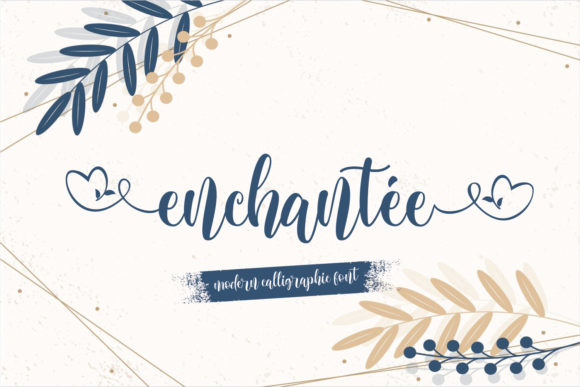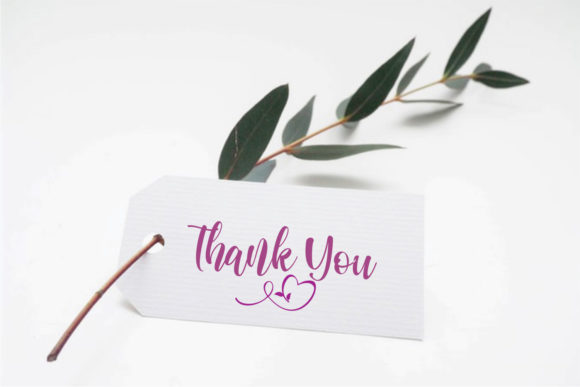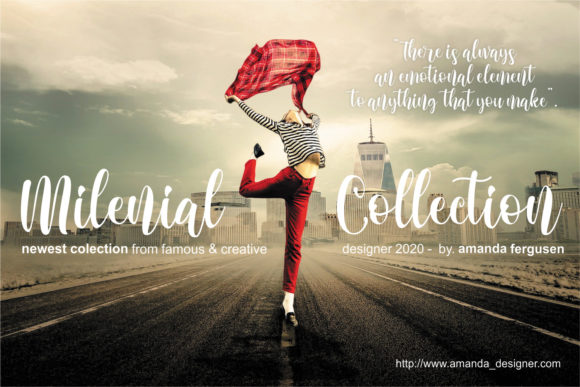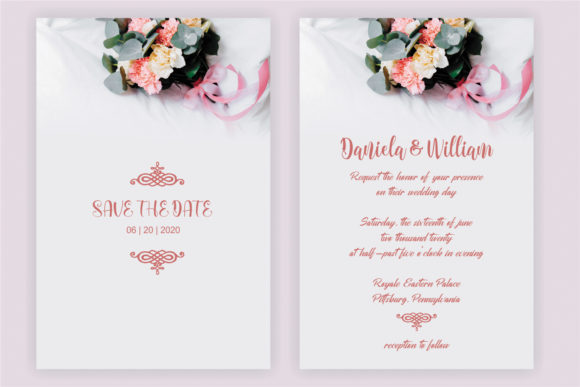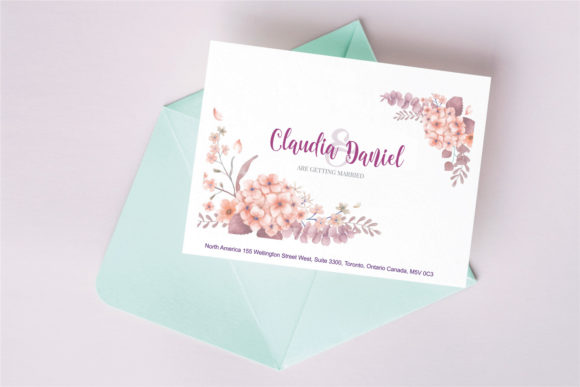
About Enchantee Font
Enchantee feels equally charming and elegant. This stunning script font is a stylish homage to classic calligraphy. It features a varying baseline, smooth lines, gorgeous glyphs and stunning alternates. This font is PUA encoded which means you can access all of the hearty glyphs and swashes with ease! It also features a wealth of special features including alternate glyphs and ligatures.